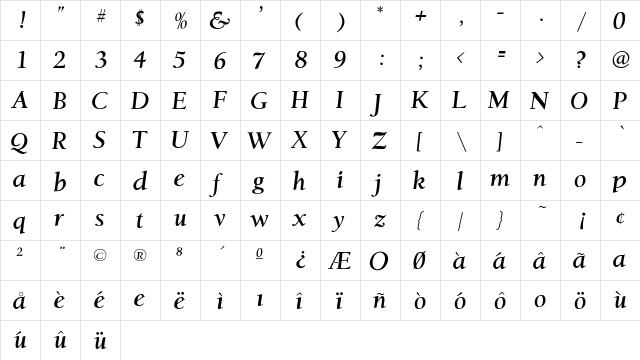
HeathervilleOldStyle Regular
Design Context for HeathervilleOldStyle Typeface
HeathervilleOldStyle brings classic typographic sensibility to the table — its serifs and measured letterforms reflect centuries of print heritage.
Pro Tip: Use HeathervilleOldStyle for editorial body copy and considered headline work. Pair with a neutral sans for UI elements or captions to create a classic hierarchy.